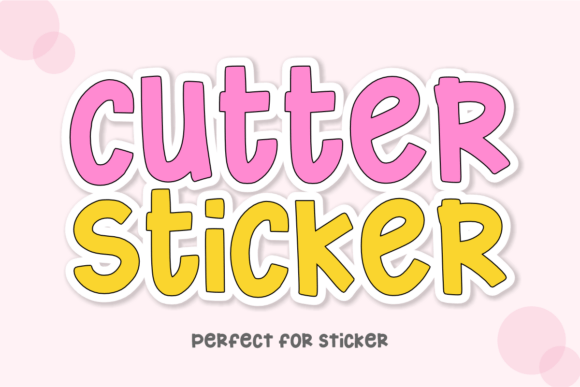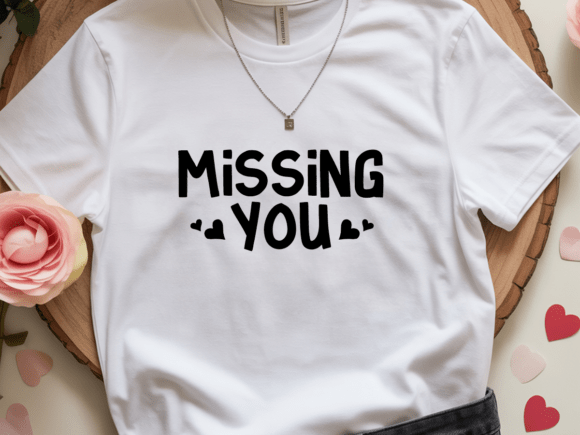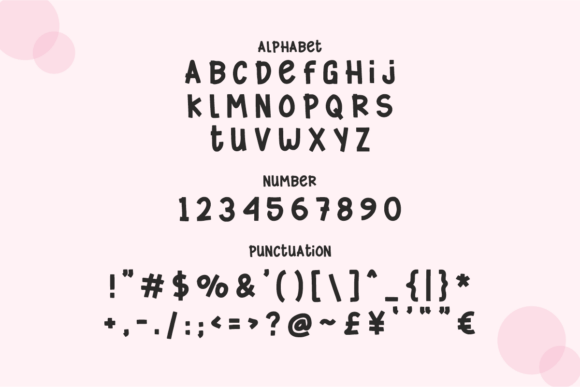
Introduction to Cute Cricut Font
πŸŽ€ Cute Cricut – Playful & Bubbly Display Font ✨ Add a splash of sweetness to your crafts with Cute Cricut, a bold and cheerful display font designed for high-impact creativity.
Featuring chunky, rounded characters with a charming hand-drawn feel, this font is the perfect choice for designs that need to be fun, approachable, and totally adorable Whether you’re making custom vinyl decals, vibrant classroom posters, or trendy kids’ apparel, Cute Cricut is optimized for clean cutting and professional printing.
Cute Cricut Font offers exceptional quality and versatility, making it a valuable addition to your design toolkit. Whether you’re creating for personal projects or commercial use, Cute Cricut Font delivers professional results.